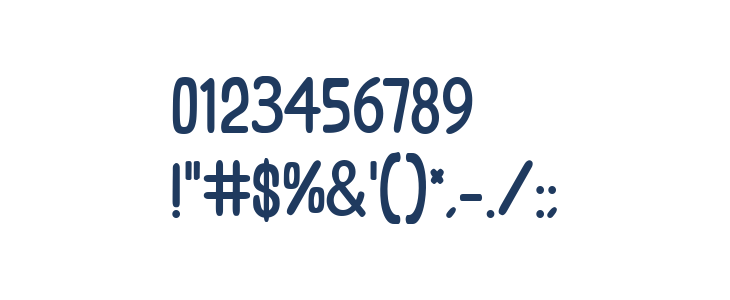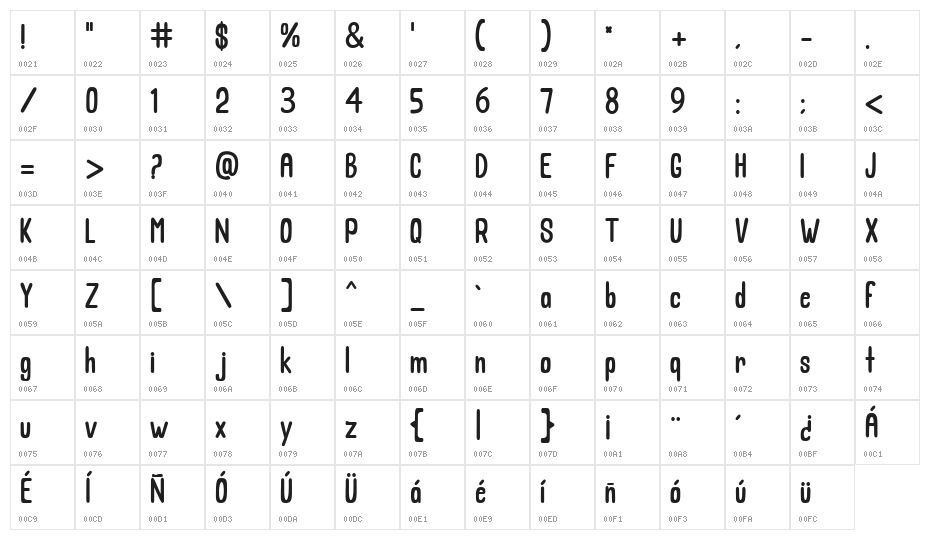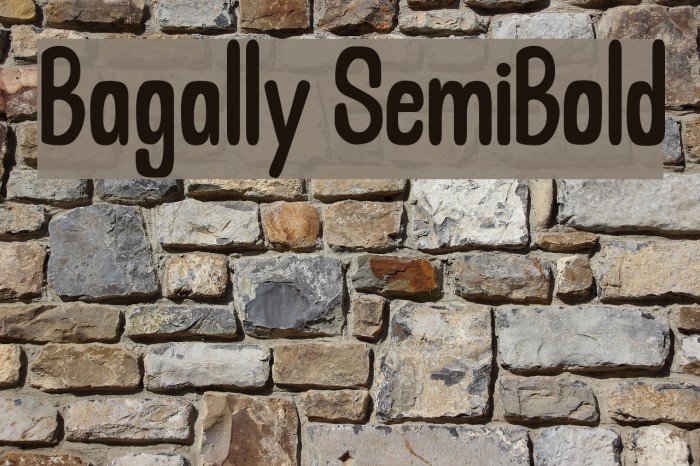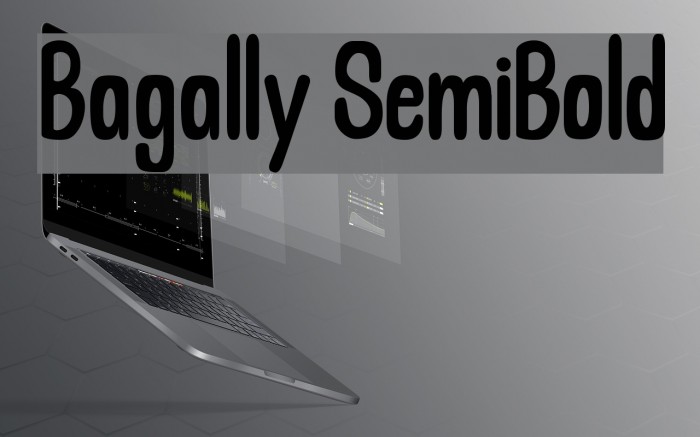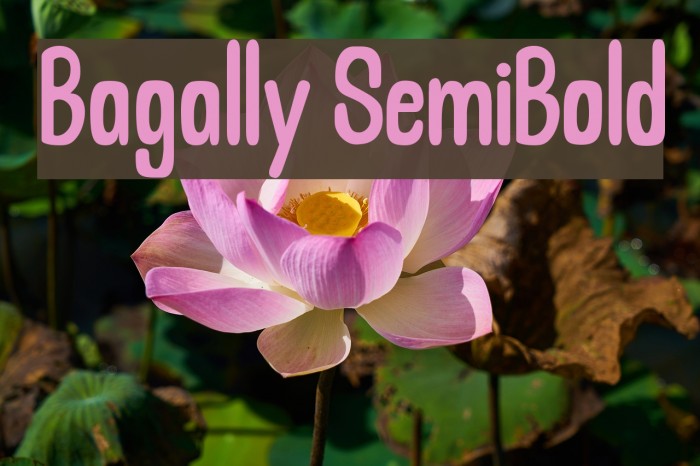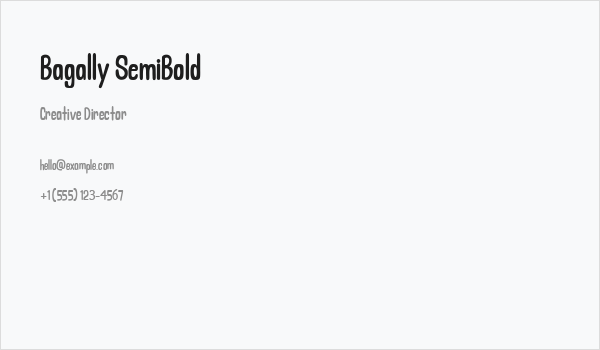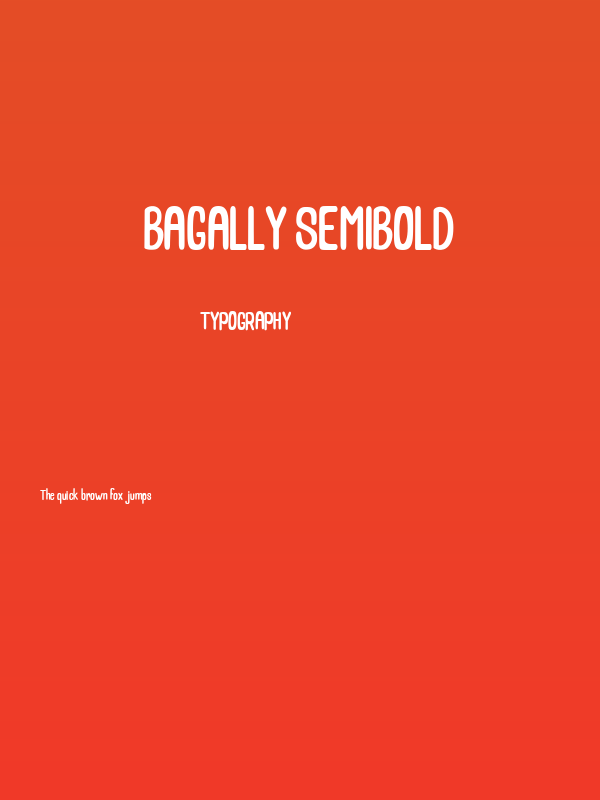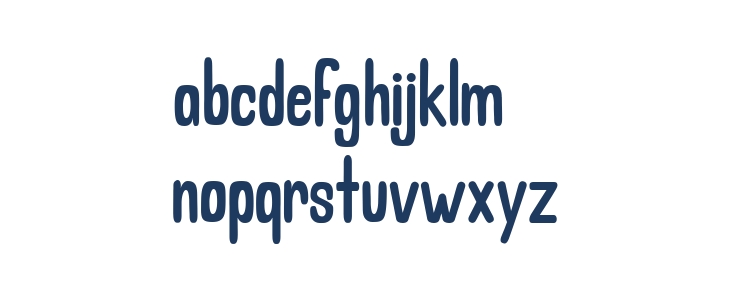
Bagally SemiBold Font
Bagally SemiBold Description
This font features a playful and rounded style, characterized by its smooth curves and uniform stroke width. The letters are bold and slightly condensed, giving it a friendly and approachable appearance. The uppercase and lowercase letters maintain a consistent design, with rounded terminals and a slight slant that adds a touch of dynamism. The numerals are clear and easy to read, matching the overall aesthetic. Special characters are well-integrated, maintaining the same rounded and bold characteristics. This font is versatile, suitable for both digital and print media, and works well in various sizes due to its legibility and distinctive style.
Overall StylePlayful
Proposed ProjectsIdeal for children's books, playful branding, casual invitations, and social media graphics.